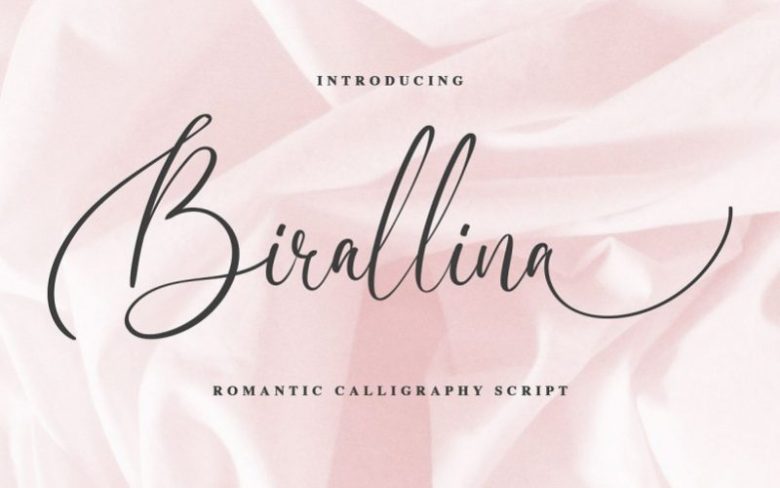
Birallina Calligraphy Font
Introducing a new calligraphy script called Billarina. Billarina  good for signature logo, wedding invitation, romantic quote, logotype, poster, social media kit, book cover, tshirt design, packaging and any more.